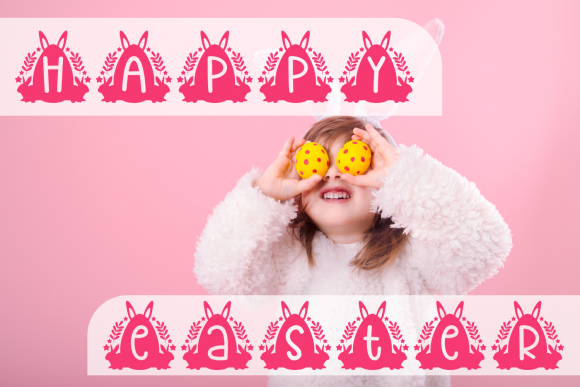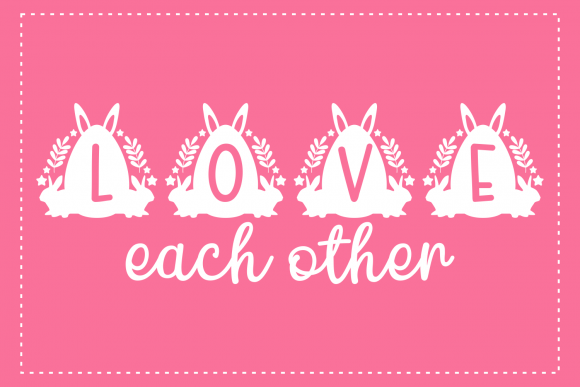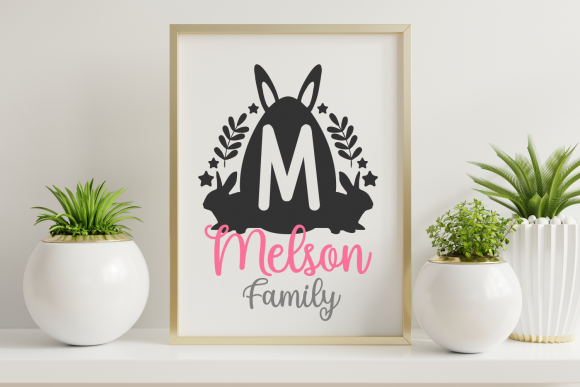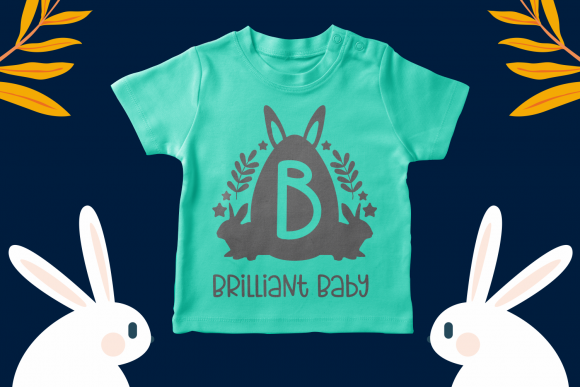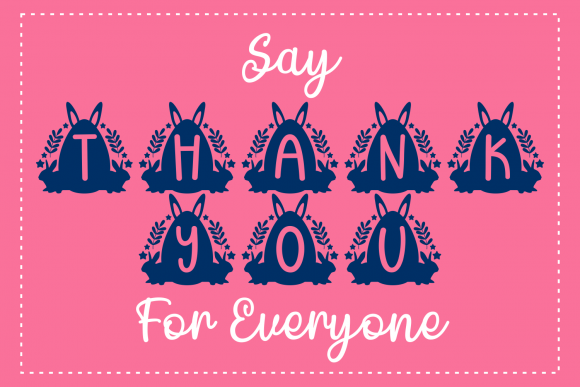
Introduction to Joy Bunny Font
Do you remember that moment when you stumbled upon the perfect design resource, and your creative project suddenly came to life? For many designers, that moment is a thing of beauty, and it’s exactly what we’re about to explore with the delightful Joy Bunny Font.
This Easter-themed font is more than just a cute addition to your designs; it’s a high-quality, free download that can elevate any project to new heights. With its friendly and cool vibe, Joy Bunny Font is perfect for creating eye-catching cards, flyers, or prints that are sure to leave a lasting impression. Whether you’re a seasoned designer or just starting out, this versatile font offers endless possibilities for creative expression.
Key Features of Joy Bunny Font
- High-quality design resource ideal for creative projects, such as logos, icons, and graphics.
- Features a unique and playful character set, perfect for adding a touch of whimsy to designs.
Honest Review: Joy Bunny Font
I recently had the chance to work with the Joy Bunny Font, and I must say it’s been a fun addition to my design resources. This playful, handwritten font is perfect for adding a touch of whimsy to creative projects.
- ✨ Unique and expressive characters that bring a smile to the face.
- ✨ A wide range of glyphs, including punctuation and numbers, that are carefully crafted to match the playful feel of the font.
- ✨ High-quality, crisp lines and smooth curves that make it perfect for both digital and print use.
- ⚠️ Limited support for non-English characters, which can make it challenging to use in certain contexts.
- ⚠️ Not suitable for professional, formal projects where a more traditional font is required.
Overall, I’m really enjoying working with the Joy Bunny Font. It’s a great addition to my design toolkit and perfect for adding a touch of personality to creative projects. With a little creativity, the limitations can be easily worked around, and the result is well worth it.
The Joy Bunny Font is perfect for various creative projects, including children’s book illustrations, party invitations, and social media graphics. Its transparent background makes it easy to combine with other design elements.